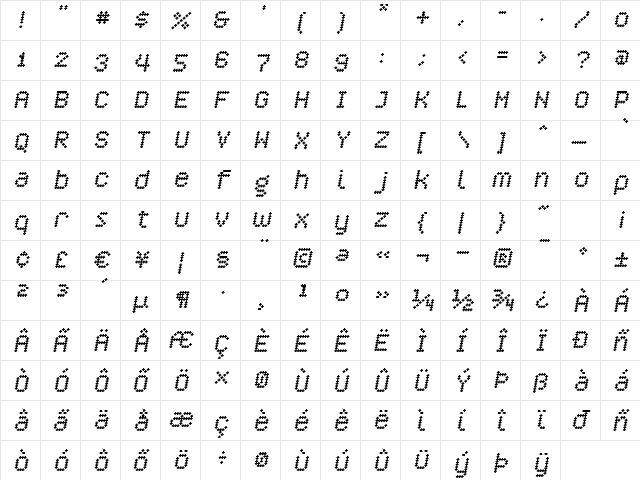
Crossover BoldOblique
| Foundry | YouWorkForThem |
| Designer | Michael Cina |
Design Context for Crossover Typeface
Crossover is a composed and adaptable typeface that performs quietly and consistently across a wide range of design contexts. The slanted form adds forward momentum and visual energy. Its bold stroke weight gives it real presence on the page.